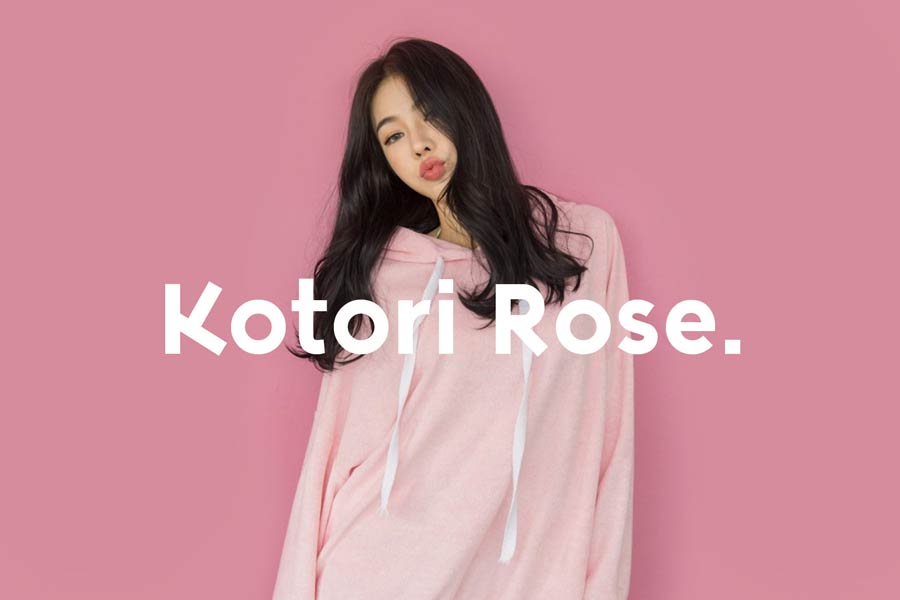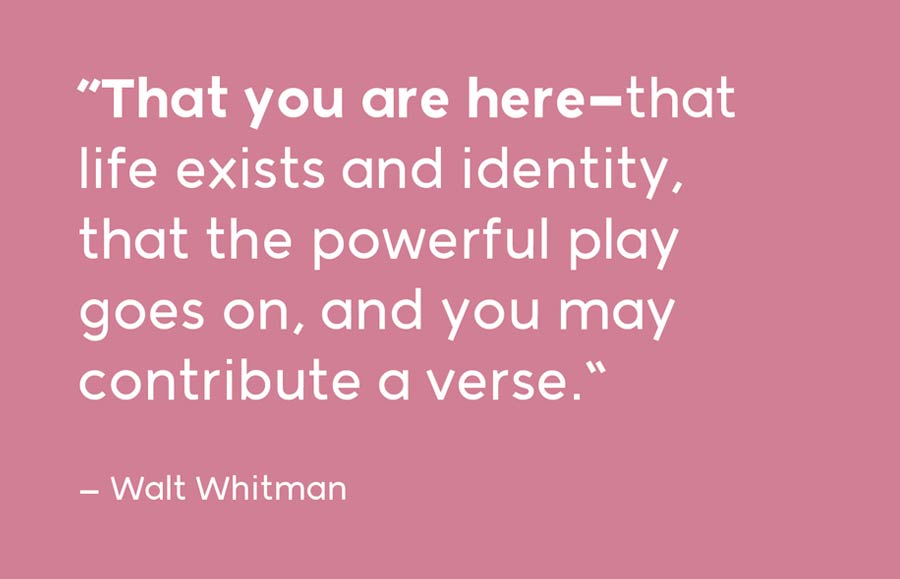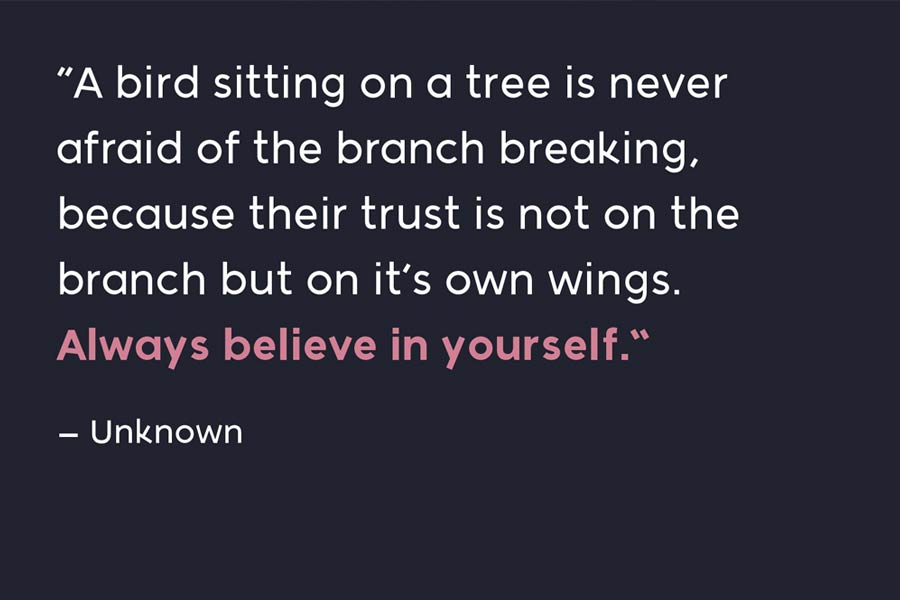
Kotori Rose is a geometrical sans serif font designed by Brian Jacob. According to him, he started the font project from the letter “K”, from there he further develops and expands it into a full typography project. This project also helped him injected self confidence and trust to his own intuition.
The letter forms were inspired by the bold and simple nature characteristics of geometric fonts, added with some added unconventional style from Brian, Kotori Rose is a geometric sans serif with a spice. It comes with two nifty font weight and you can use it for commercial projects!